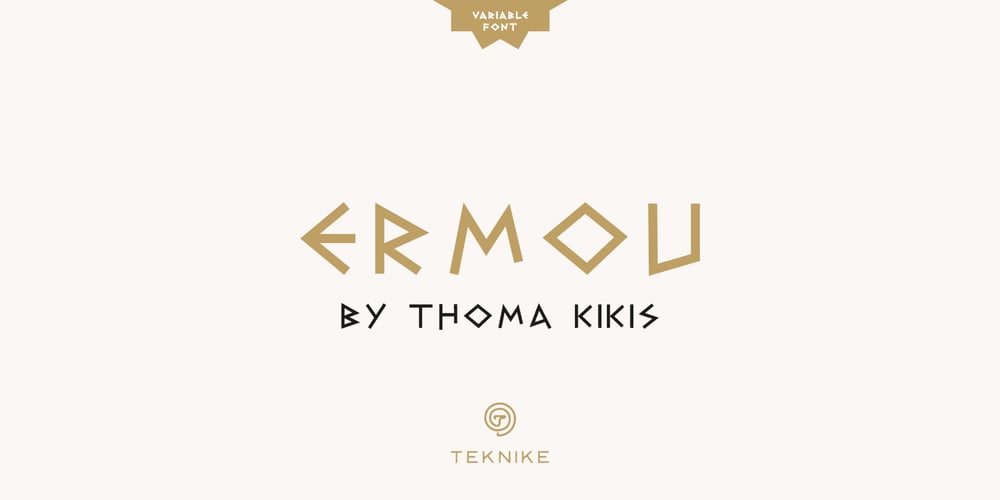
Ermou Font Family was designed by Thoma Kikis and published by TEKNIKE. Ermou contains 10 styles and family package options. Ermou is a display monospace font. The typeface has a distinct geometry using sharp angled corners as a tribute to writing and carvings of Ancient Greece. The name is derived from Ermou Street (Οδός Ερμού) or “Street of Hermes” named after the Ancient Greek messenger God and “the bringer of good luck” Hermes (Ἑρμῆς). The famous street was one of the first roads designed in modern Athens, Greece. Today Ermou is Athens’ commercial heart and top ten most expensive retail streets in the world. Ermou is great for team sports, display work, invitations, writing, architecture, fashion, posters, titles and headings.